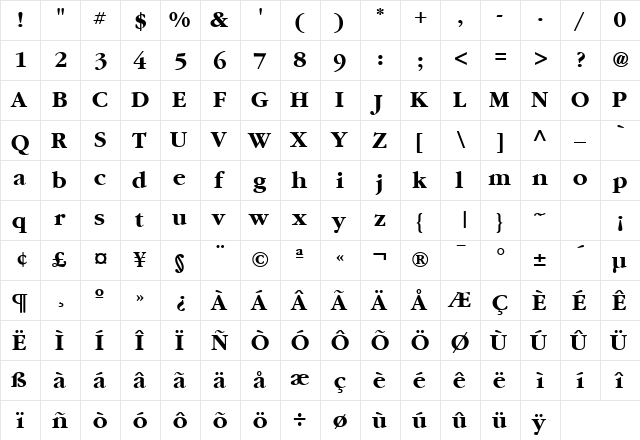
GarryMondrian6 BoldSH
Design Context for GarryMondrian6 Typeface
GarryMondrian6 offers clean, dependable letterforms without strong stylistic allegiance, making it a practical choice for designers who need flexibility. Its bold stroke weight gives it real presence on the page.
Pro Tip: Pair GarryMondrian6 with a font of contrasting weight or personality to build a more expressive typographic hierarchy.